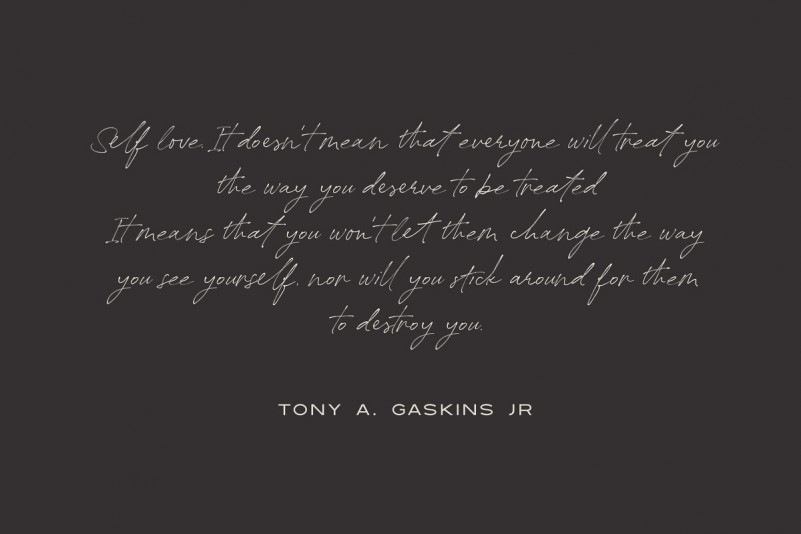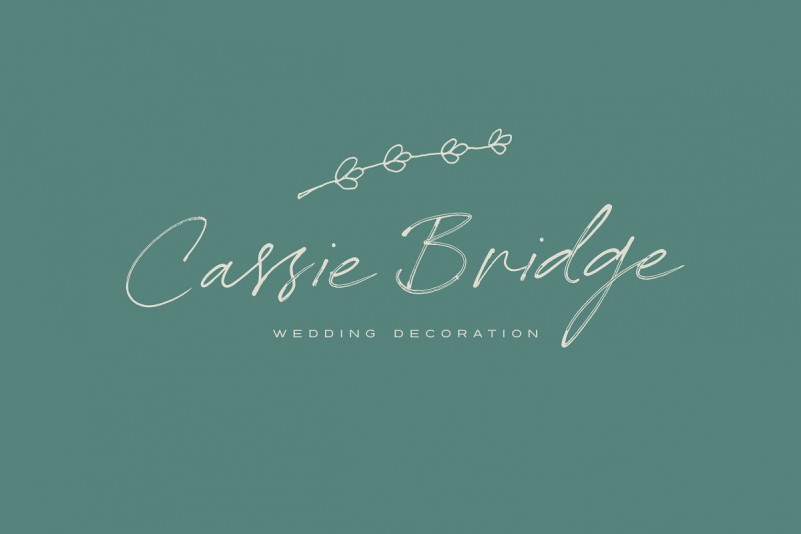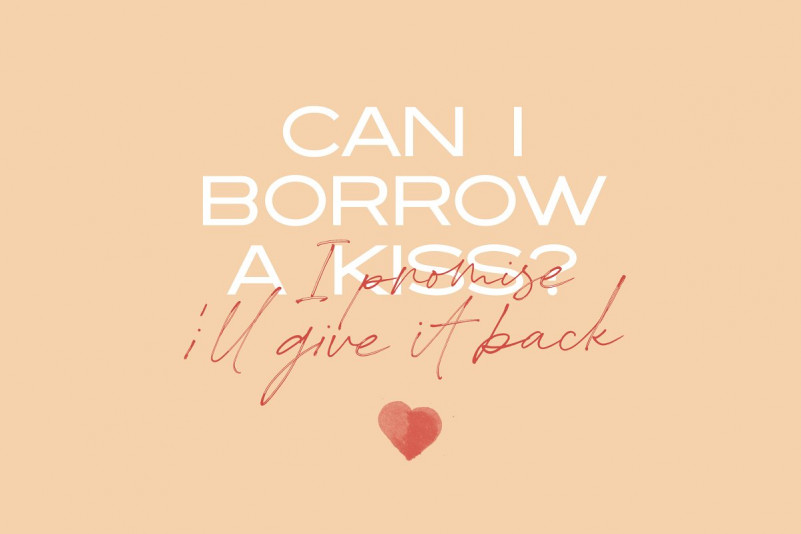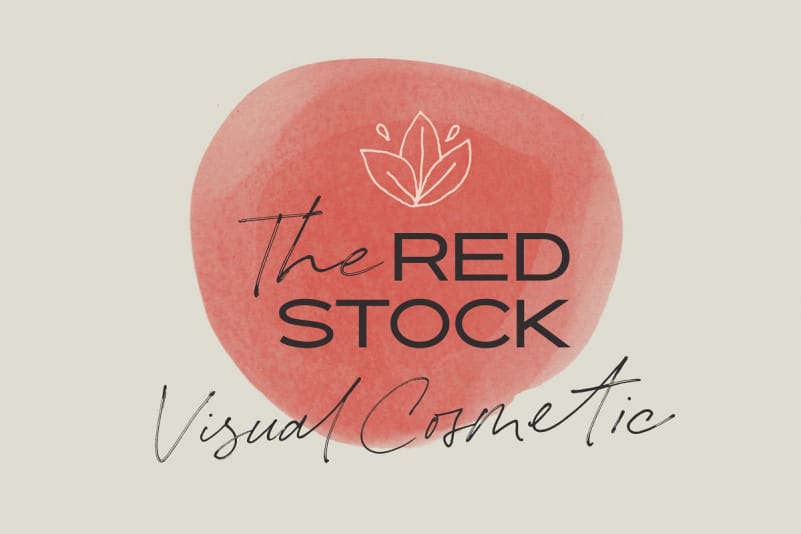
The Redstock Handwritten Font
Hello Guys! Befonts always want to introduce the best typography to you, and now is a special handwriting, it’s completely designed by hand. A brush font which created to make it looks more natural that can give a more elegant and grand impression. Introducing The Redstock Font. Imagine the fonts as a visual cosmetic. Yes, started from that idea, we came up with the set of fonts and design arsenal called The Red Stock. An authentic handwritten script font with “almost-empty” ballpoint effect. Perfectly fit for your logo, branding, a fancy signature for every project, anything. Feel the versatileness in every stroke of it like a daily makeup to visually attract all eyes on you.